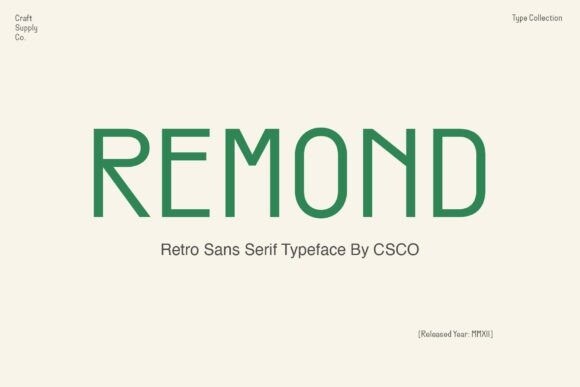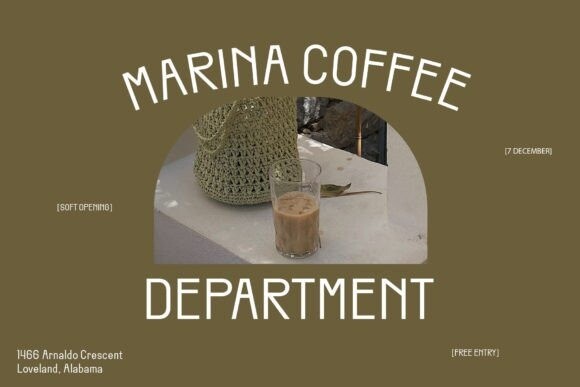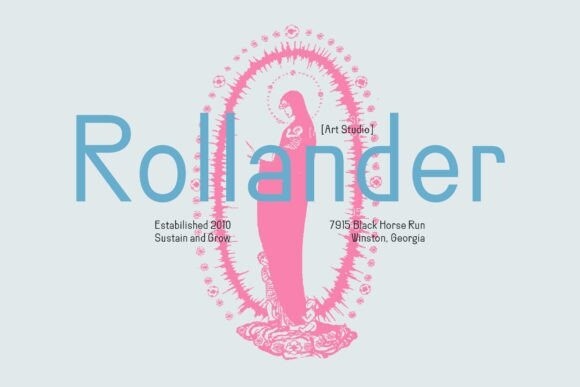
Remond Font
Introducing Remond, a retro sans serif typeface that combines geometric structures to maintain a flashy look for display purposes. Add it confidently to your projects, and you will love the results!